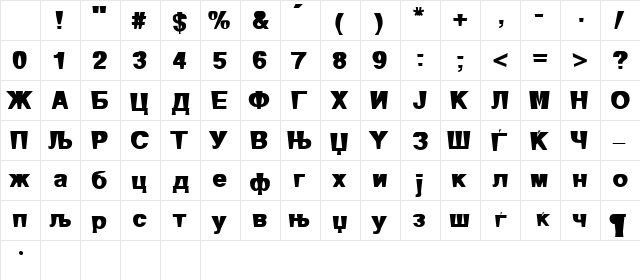
Complete X_Atleta Heavy glyph index. Displaying only characters natively supported by X_Atleta Heavy font.
X_Atleta is a composed and adaptable typeface that performs quietly and consistently across a wide range of design contexts.